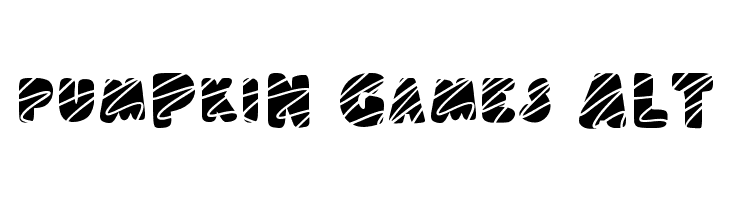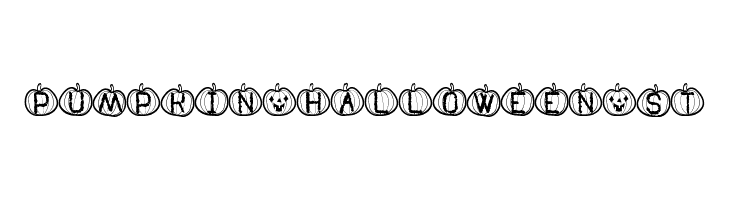
A bold, playful font with a unique striped pattern and rounded, chunky characters.
A playful Halloween-themed font with characters inside pumpkin shapes.
A whimsical and decorative font with curly embellishments, perfect for festive and playful designs.
A playful, hand-drawn font with a whimsical, quirky style.
A bold, Halloween-themed decorative font with playful, spooky elements.
A bold, Halloween-themed font with playful, spooky embellishments.
A bold, jagged font with a spooky, hand-carved appearance.
A playful, bold handwritten font with smooth, rounded edges and a casual style.
A playful, rounded font with a bold and whimsical style.
A playful, rounded font with smooth curves and a friendly appearance.